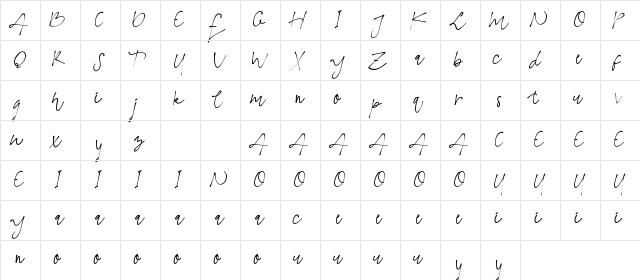
The Moyanka Demo Regular
| Foundry | Edric Studio |
| Designer | Yasri Ainun N & Sarah Suci Pauziah |
Design Context for The Moyanka Demo Typeface
The Moyanka Demo is a composed and adaptable typeface that performs quietly and consistently across a wide range of design contexts.